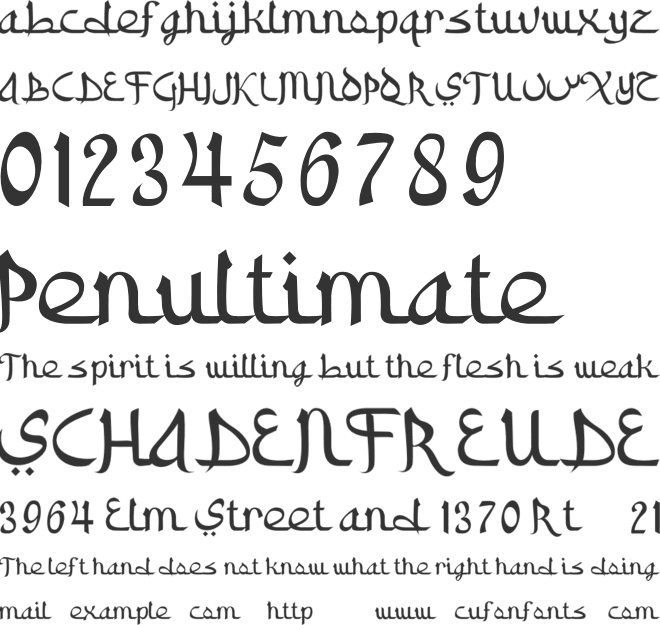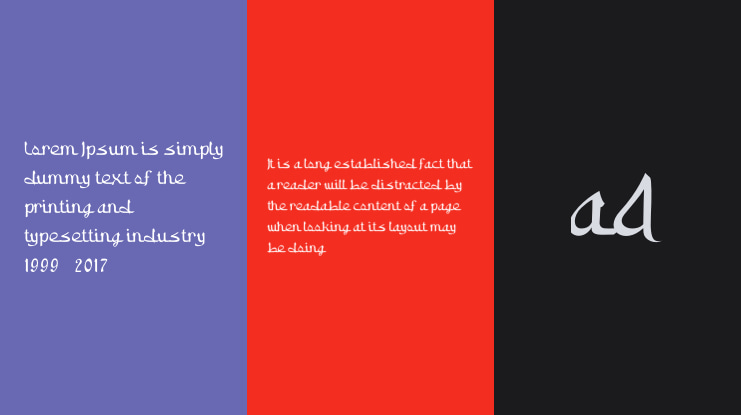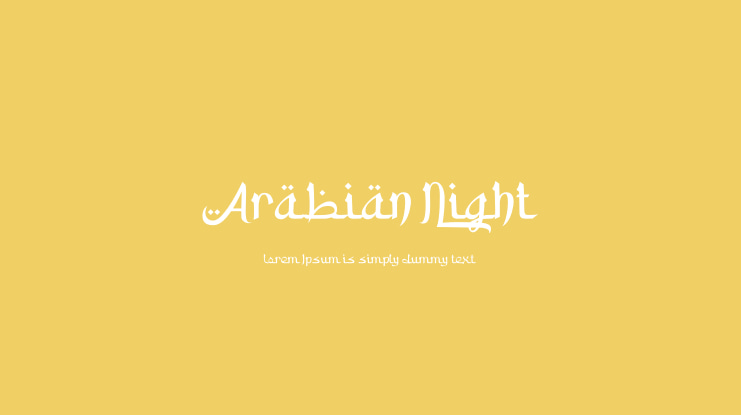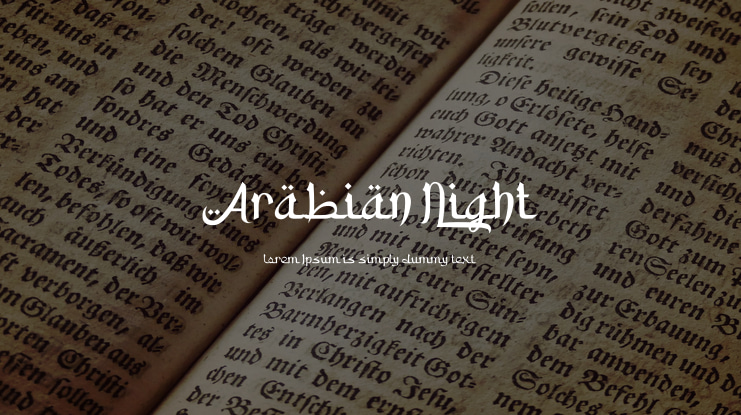
Arabian Night Font
Arabian Night, from Lettercorner, is a modern, elegant and creative display font. It contains uppercase, lowercase, number, punctuation, symbols and some other glyphs. Kiano will look great for; logotypes, business cards, labels, flyers, apparel, stationery, brochures, headlines, invitations, wedding designs, social media posts, advertisements, product packaging, product designs, photography, watermark, special events and more.